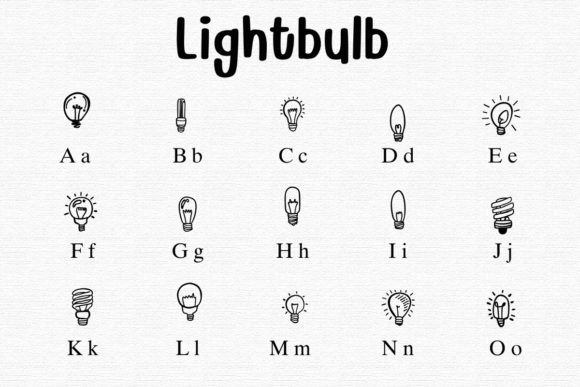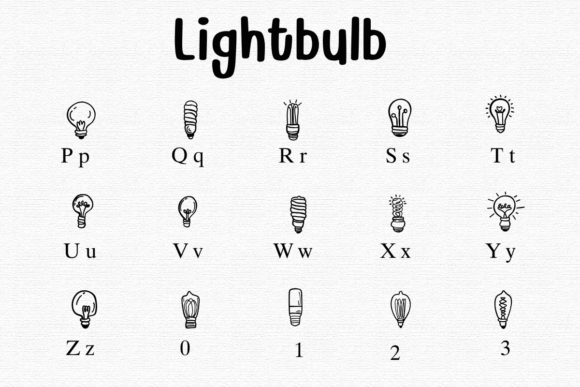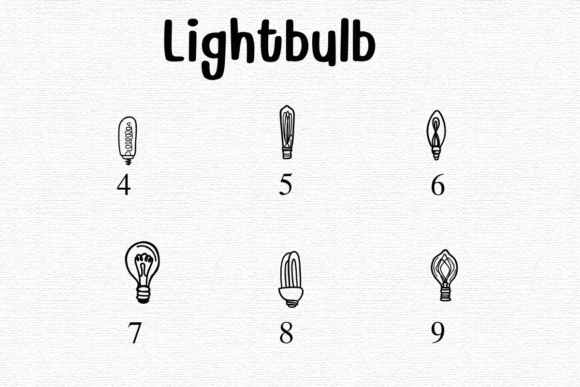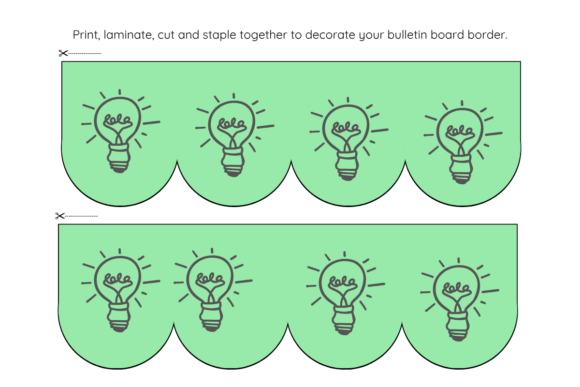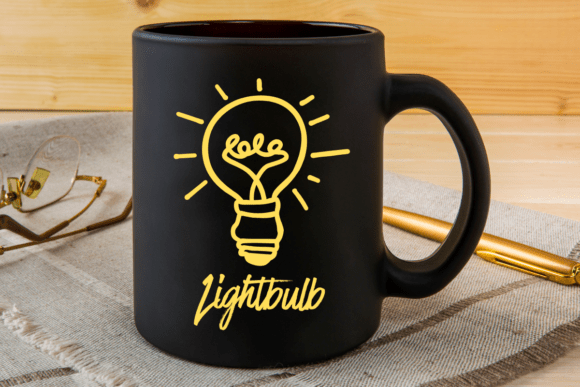
Introduction to Lightbulb Font
Lightbulb is a dingbats font with a sketched theme.
It will be perfect for use on websites, crafts, logos and so mcuh more .
Key Features of Lightbulb Font
Why Choose Lightbulb Font?